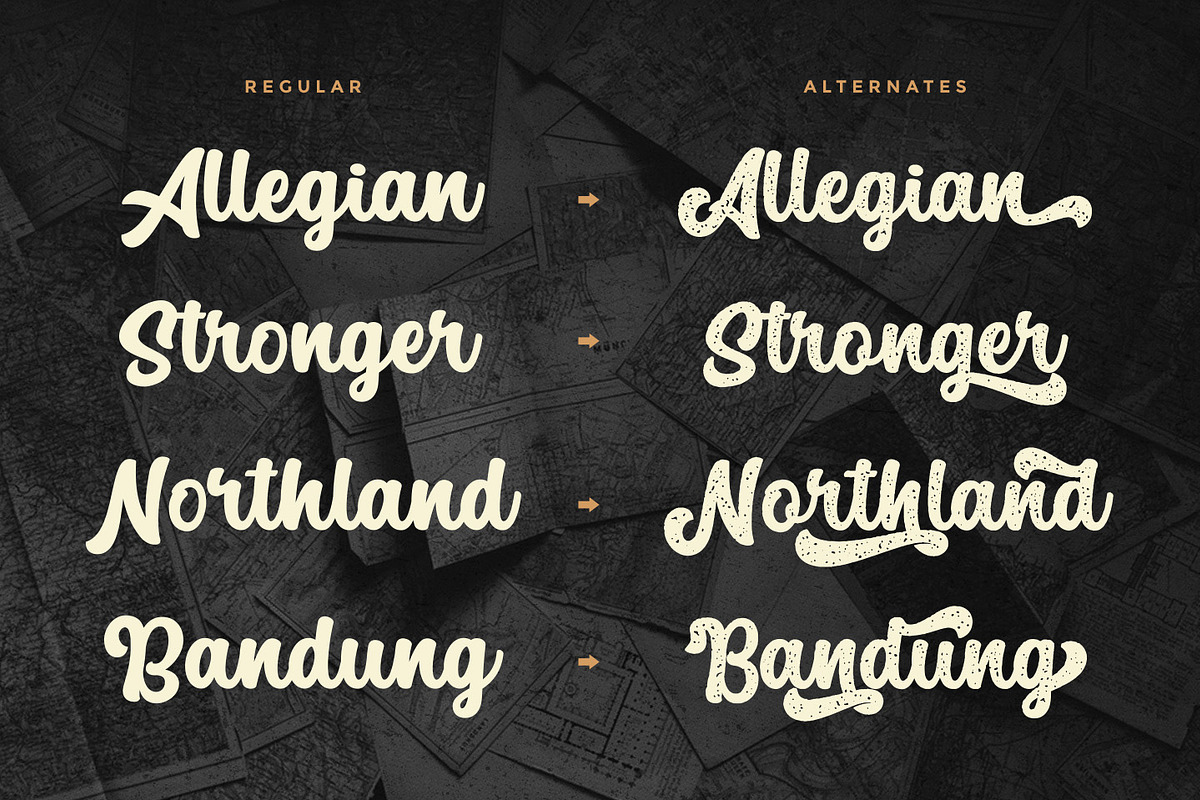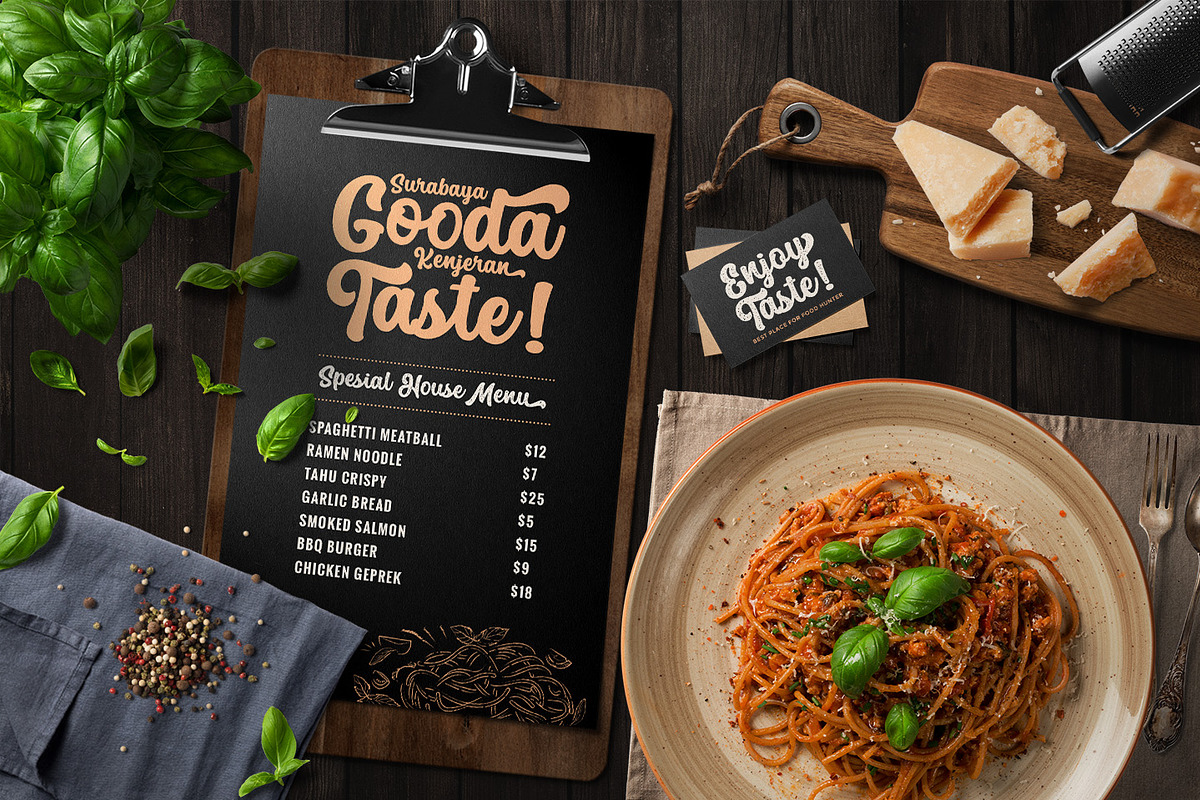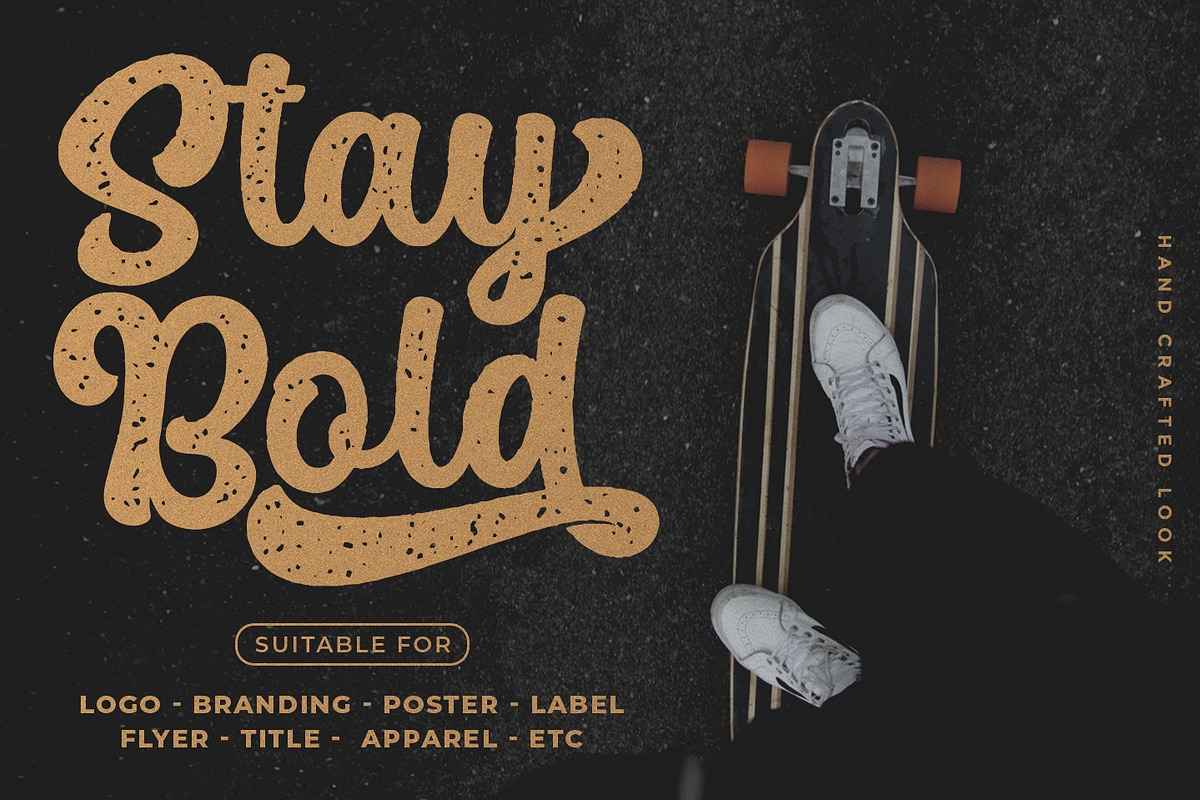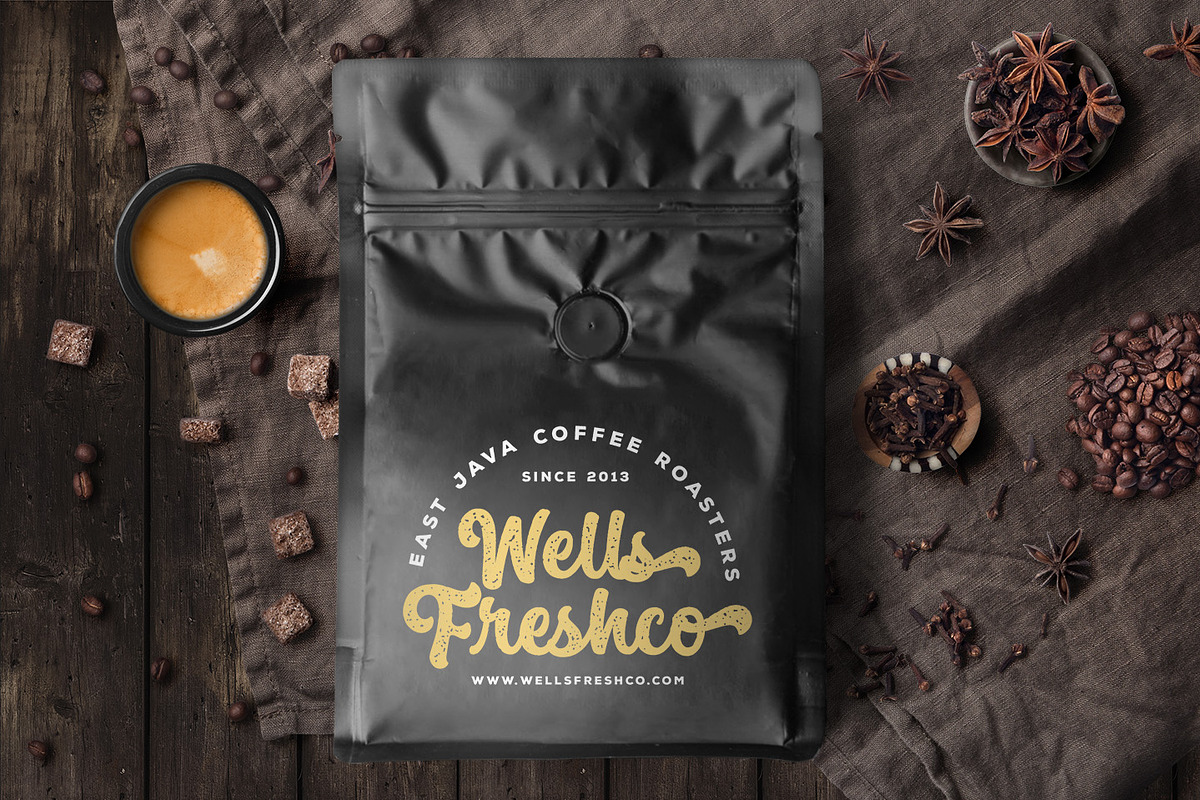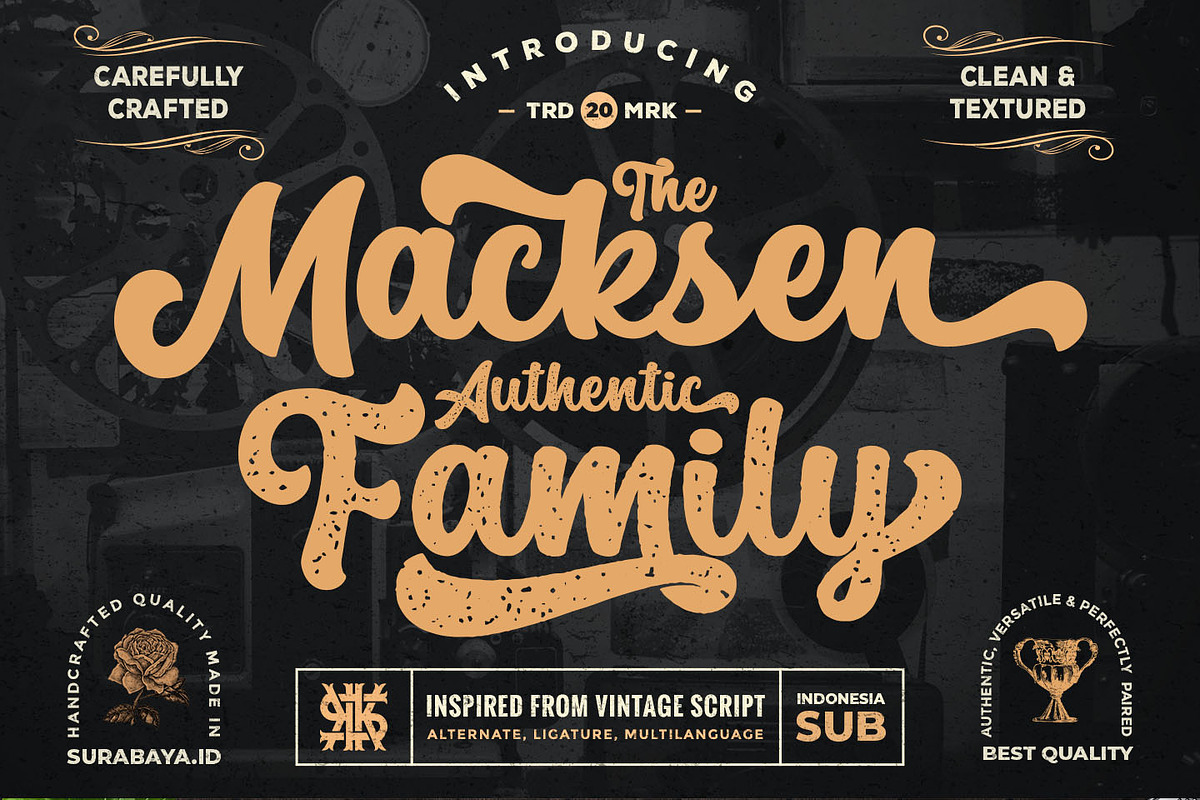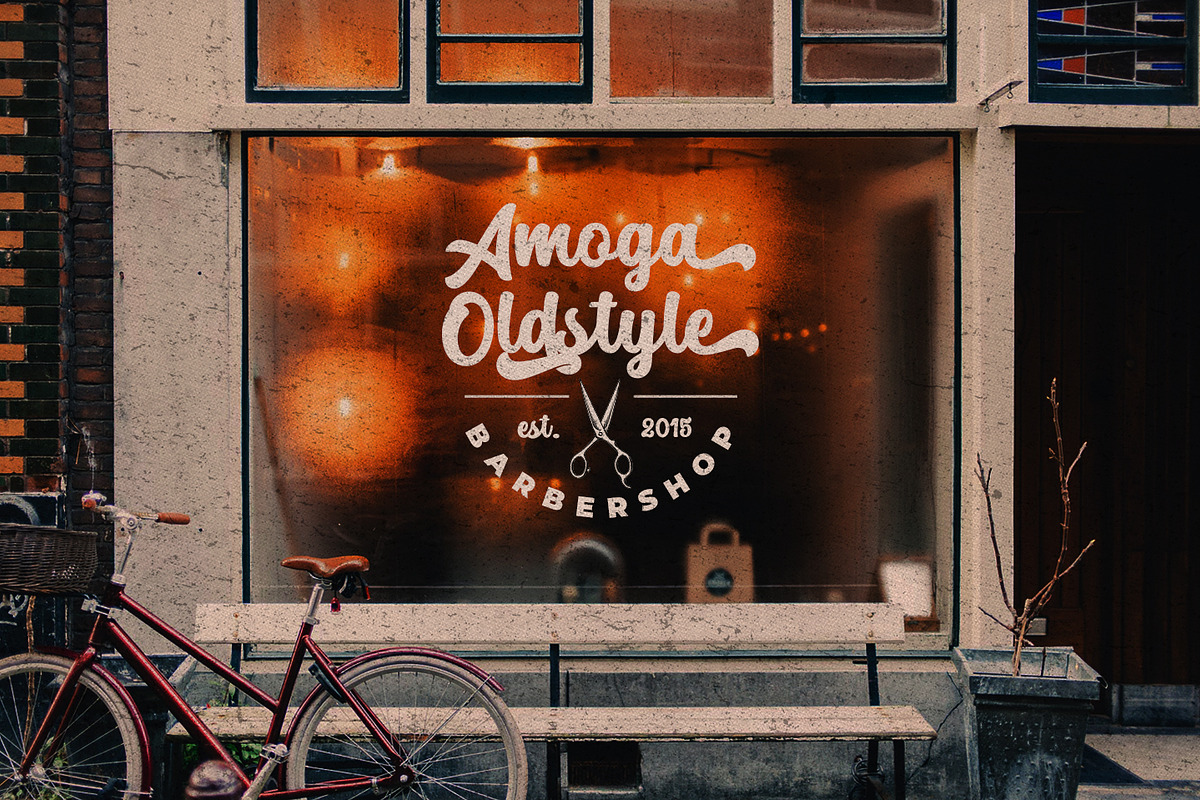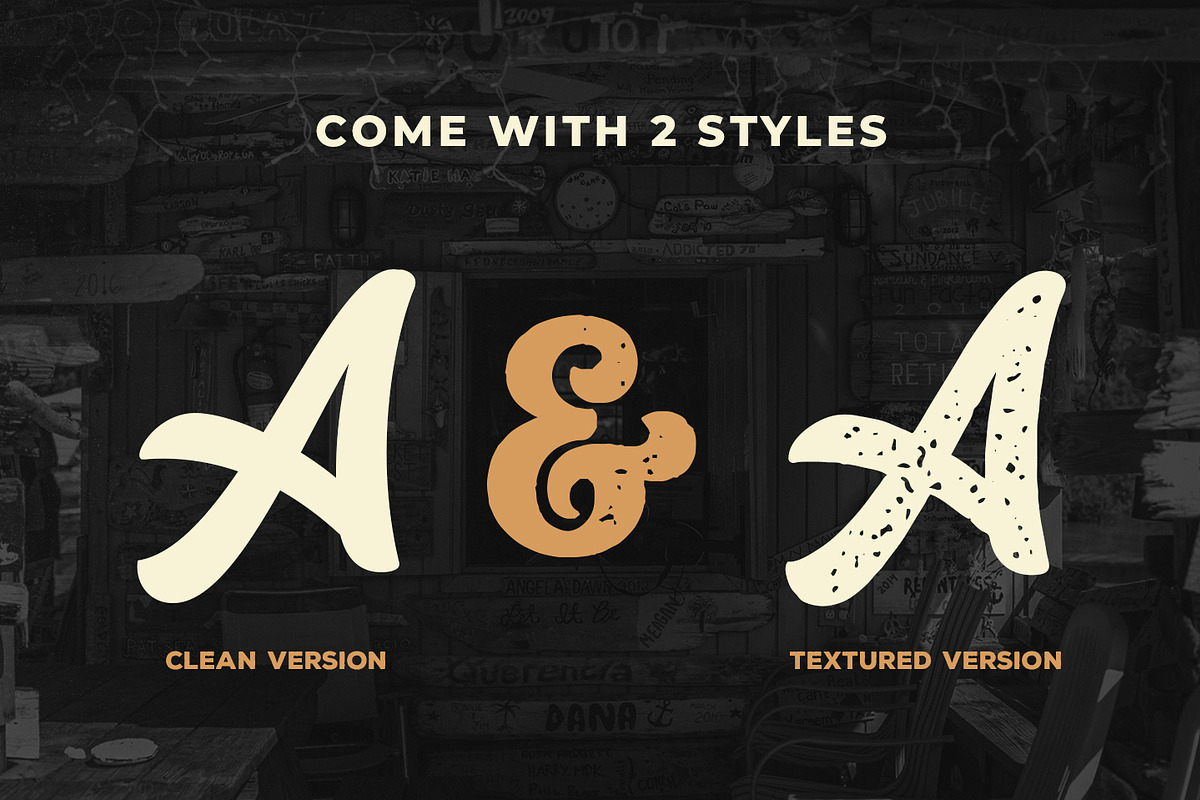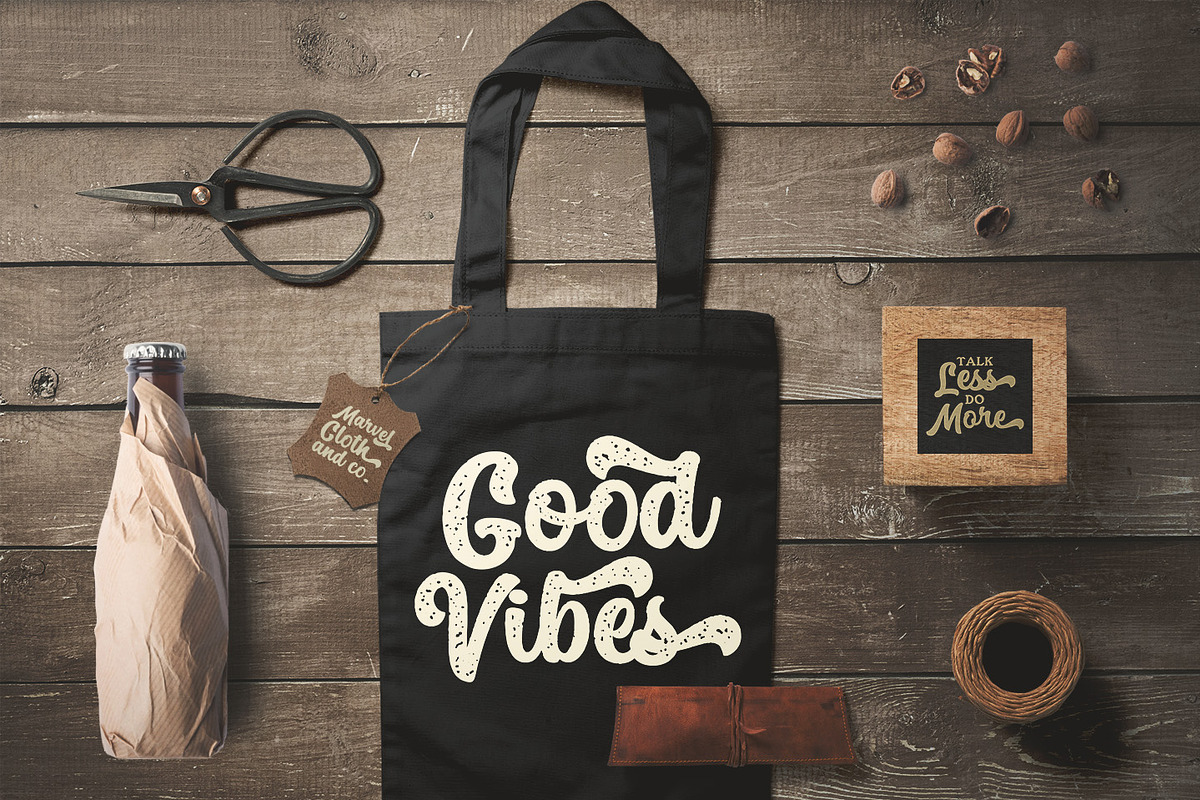
The Macksen Font
We introduce our new product called The Macksen Font. The Macksen Font is a bold script font which has two styles, Clean and Textured. With those kind of styles, The Macksen Font will looks more vintage and classic.
The Macksen Font is great for Logotype, Branding Design, Logo Design, Digital Lettering Arts, T-Shirt/Apparel, Poster, Magazine, Signs, Advertising Design, and any vintage design needs.
- The Macksen includes capital and lowercase letters, Alternates, and Ligatures
The Macksen Font by Kotak Kuning Studio fits naturally into Branding, posters, packaging, typography.